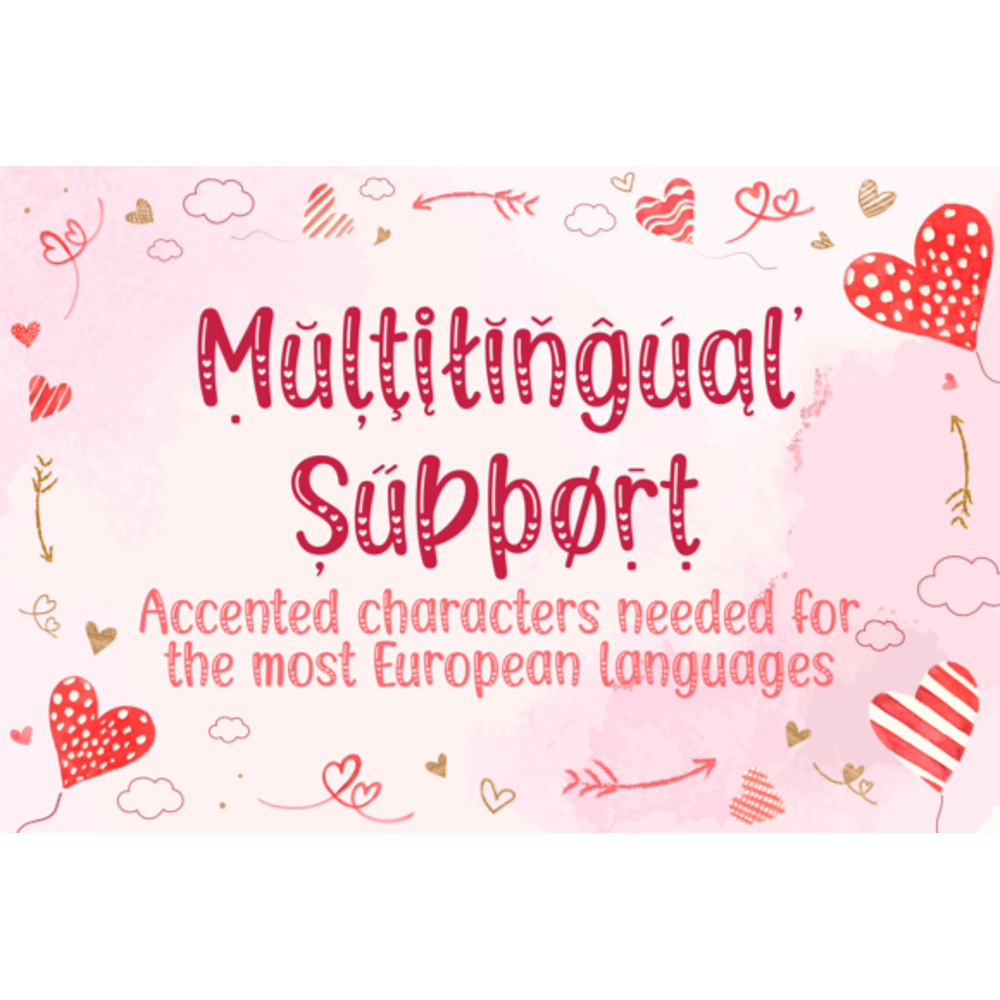
Bright Heart Font Font
Bright Heart is a cute Valentine’s Day-themed decorative font. Make your festive typography stand out with this beautiful font that has the potential to elevate any creation! It is perfect for invitations, greeting cards, advertising materials, DIY gifts, fabric prints, and many more.